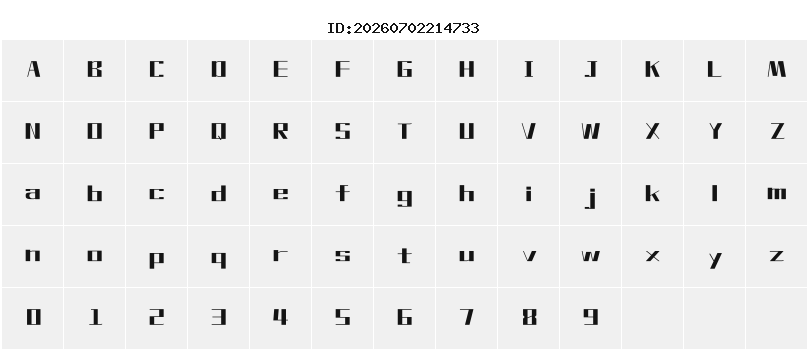
046-上首言黑体 Preview
• Font Name: 046-上首言黑体
• Full Font Name: 046-上首言黑体
• Manufacturer: 上首造字
About 046-上首言黑体.ttf
046-上首言黑体.ttf is a modern, elegant sans-serif font designed for ultimate readability and visual harmony. Perfect for branding, headlines, web design, and print materials.